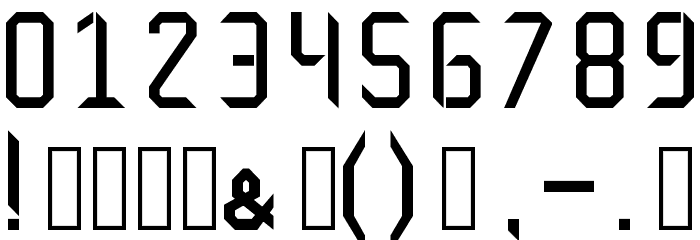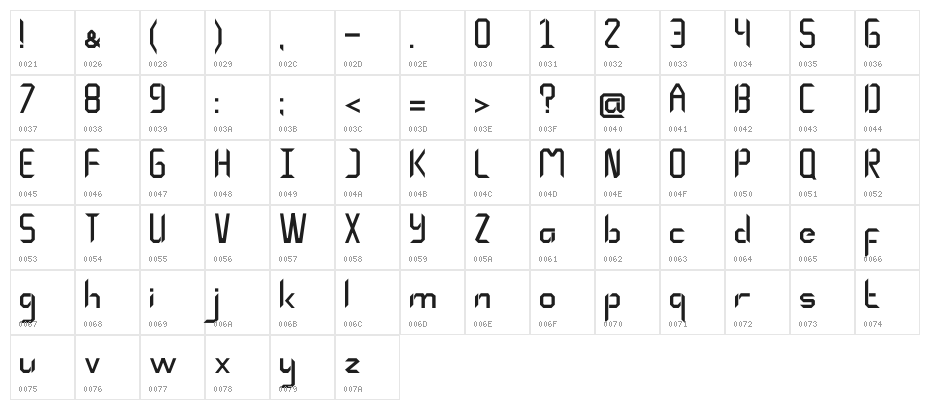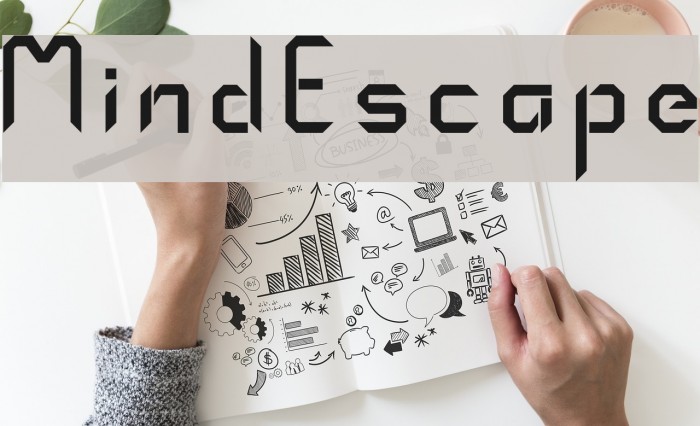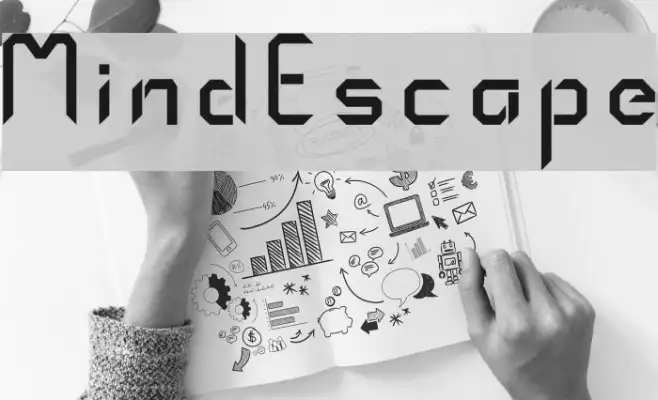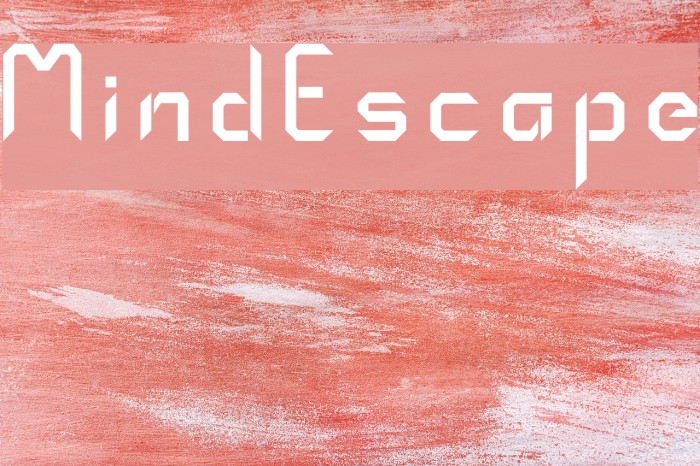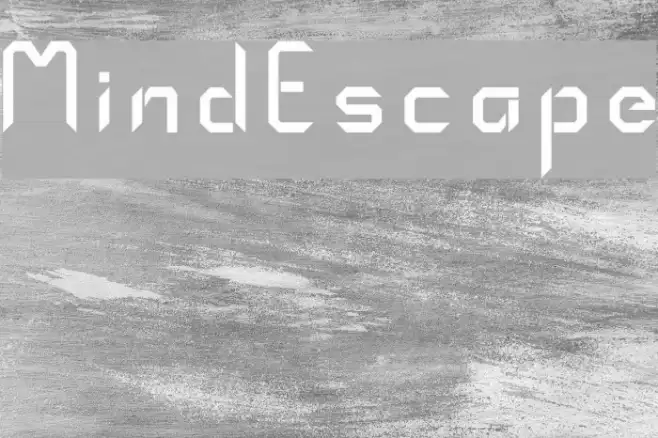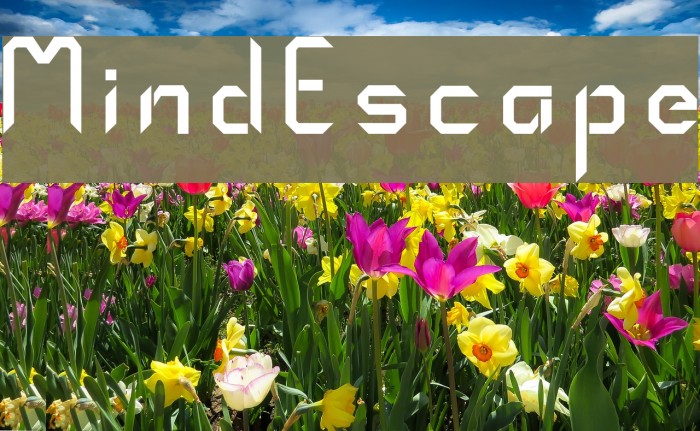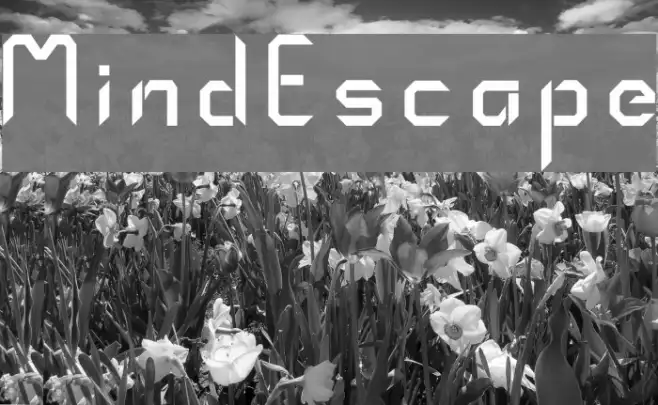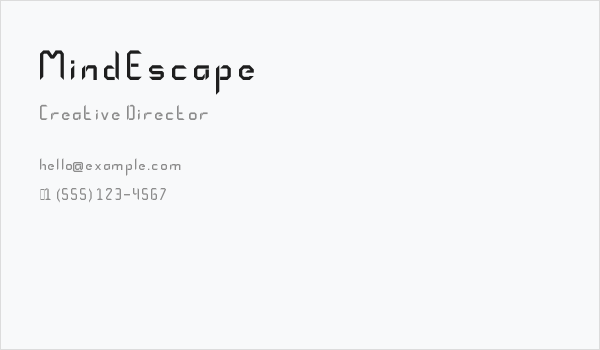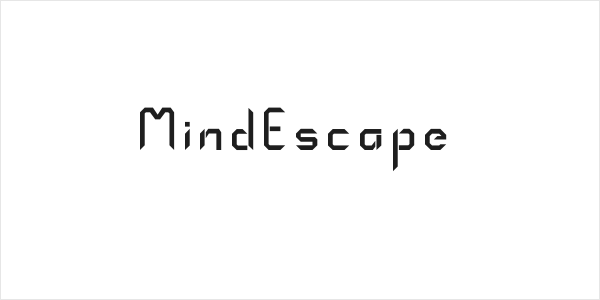
MindEscape Font
MindEscape Description
This font exhibits a futuristic and geometric style, characterized by sharp angles and distinct edges. The uppercase letters are bold and angular, creating a strong visual impact. The lowercase letters maintain the angular theme but with a slightly softer approach, providing a balance between readability and style. The numerals are consistent with the overall design, featuring sharp lines and unique forms. Special characters are creatively integrated, adding to the font's modern aesthetic. This font is ideal for projects that require a contemporary and edgy look, making it suitable for technology-related themes or modern branding.
| Proposed Projects | Ideal for technology branding, modern posters, and futuristic designs. |